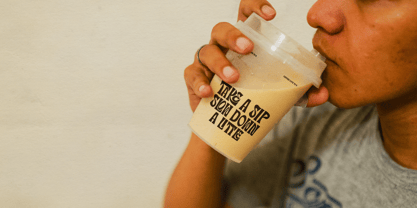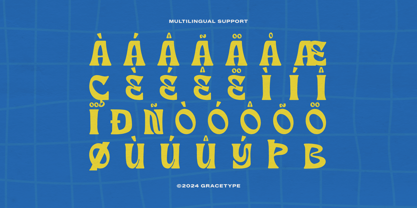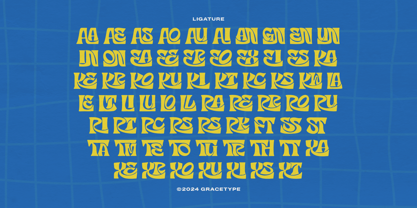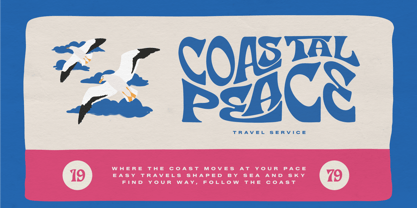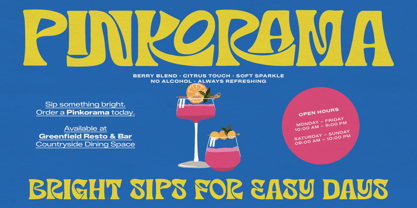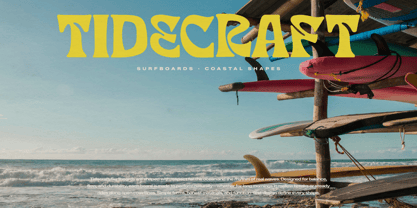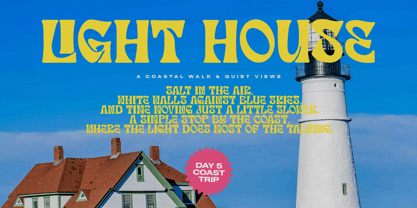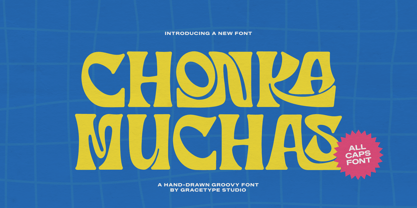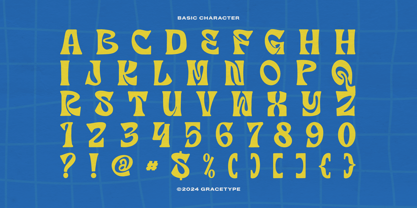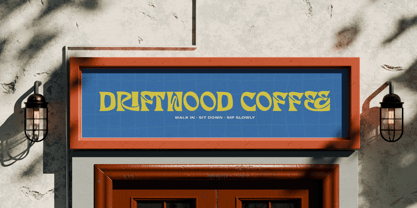
Chonka Muchas
Chonka Muchas | Hand Drawn Groovy Font, from Gracetypestudio, suitable for any projects such as: logos, branding projects, homeware designs, product packaging, mugs, quotes, posters, shopping bags, t-shirts, book covers, name card, invitation cards, greeting cards, label, photography, watermark, special events, and all your other lovely projects that need a Hand Drawn taste.